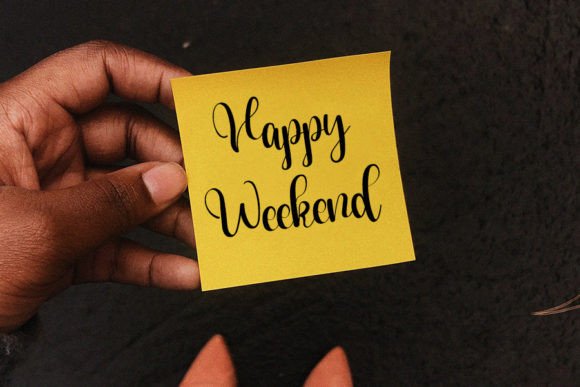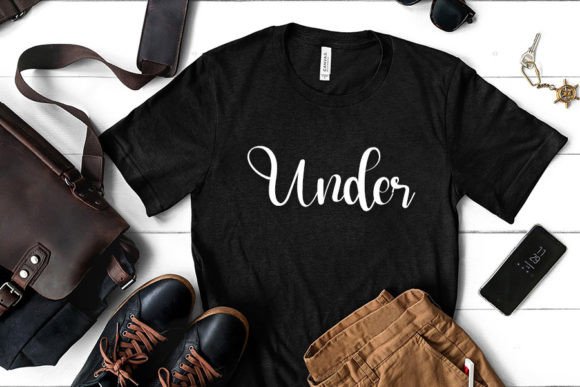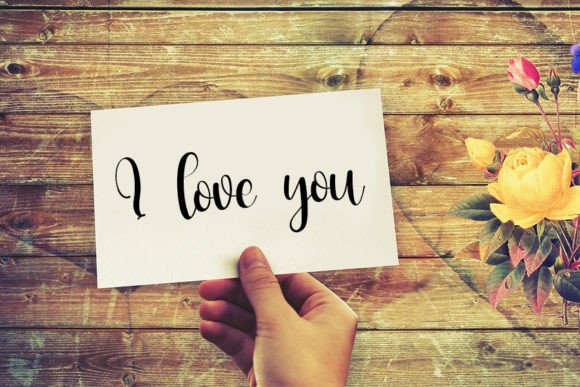
Under Font
Under Font : A Neat and Beautiful Handwritten Font for Timeless Elegance
Introducing Under, a neat and beautiful handwritten font that brings timeless elegance to your creative projects. This distinctive typeface is designed to capture hearts and elevate designs with its sophisticated charm.
Key Features of Under Font
• Elegant Handwritten Style: Adds a touch of sophistication to text
• Versatile Application: Ideal for branding, invitations, posters, and more
• Timeless Aesthetic: Conveys classic beauty and authenticity
• Distinctive Character: Stands out in various design contexts
Perfect for Elegant and Sophisticated Projects
Under excels in creating:
• Stunning branding materials that reflect unique identities
• Elegant invitations for special occasions
• Beautiful posters that capture attention
• Timeless designs for various creative projects
Why Choose Under?
This font’s classic yet distinctive style ensures your content exudes sophistication and makes a lasting impression. Its handwritten elegance adds authenticity to text, making it ideal for projects that aim to convey a sense of timelessness and personal touch.
Under is more than just a font; it’s a tool for expressing elegance and timeless beauty through design. Whether you’re working on branding projects, wedding invitations, or creative layouts, this font will help you create content that truly stands out with its distinct and classic style. The font’s flowing curves and graceful ligatures add a personal, handcrafted feel to your text, making it perfect for projects that require a human touch. Its legibility at various sizes ensures that your message is not only beautiful but also clear and easy to read. Add Under to your font collection today and experience the transformative power of its timeless beauty on your creative endeavors. Let this exquisite handwritten font be the secret ingredient that takes your designs from good to unforgettably elegant, setting your work apart in a crowded design landscape. Whether you’re an experienced designer or someone with a passion for creativity, Under is your go-to font for embracing elegance and beauty in your work. Its versatility allows it to shine in various applications, from formal documents to casual social media content, making it a valuable asset in any designer’s toolkit.